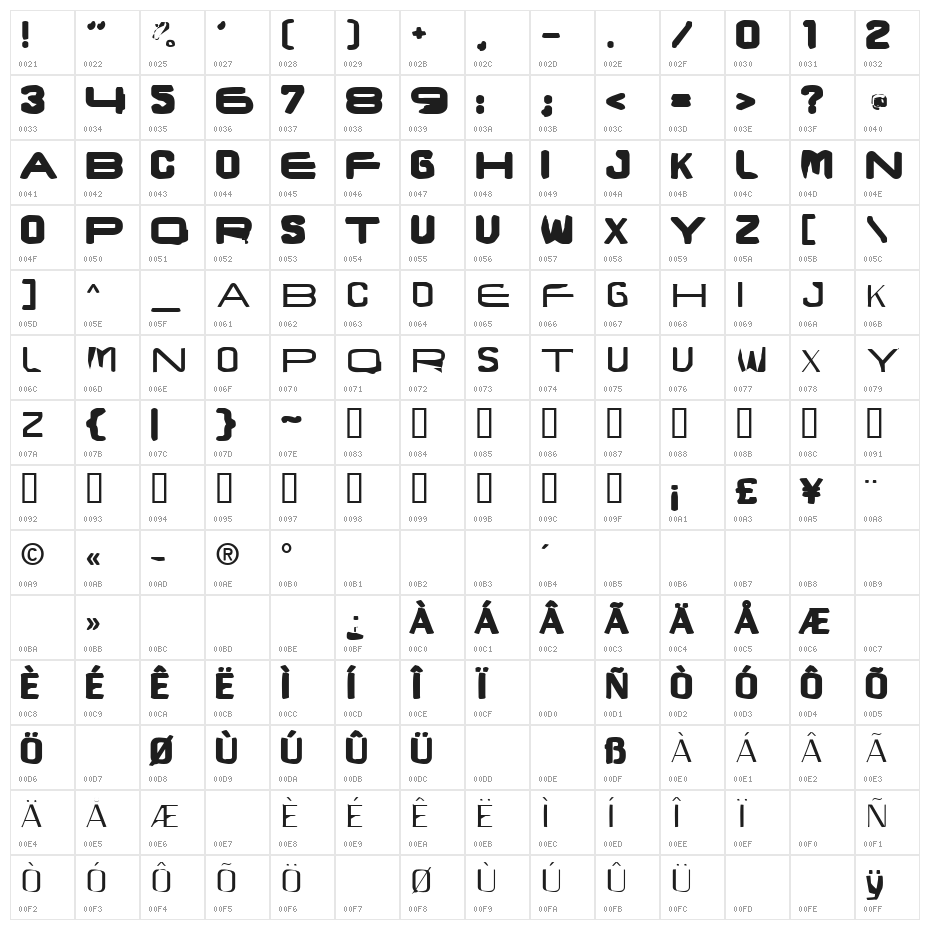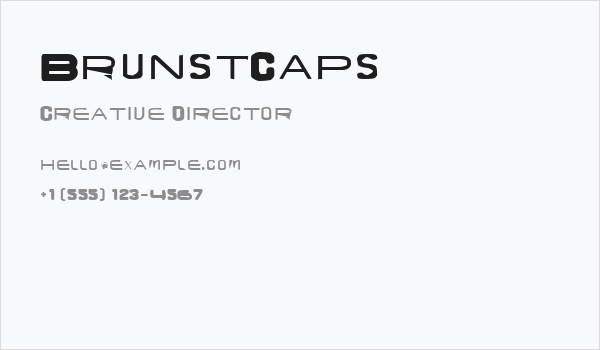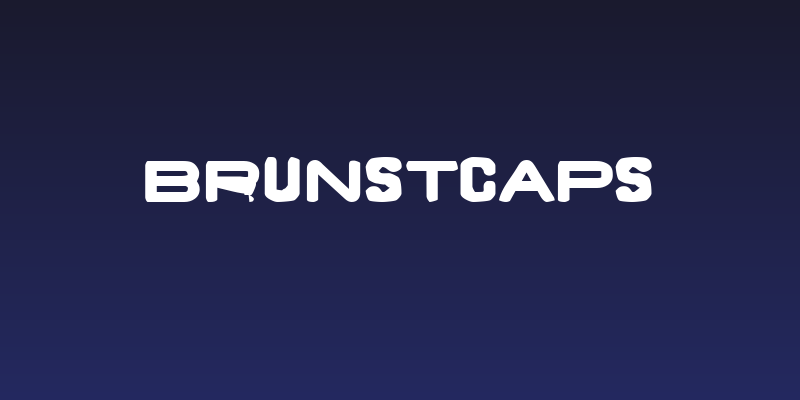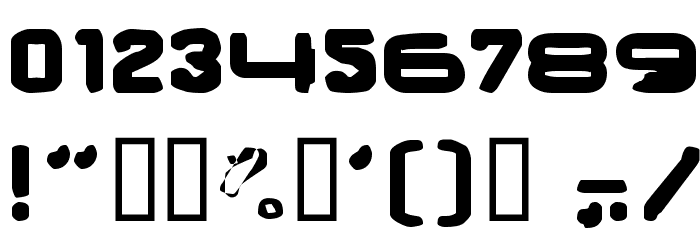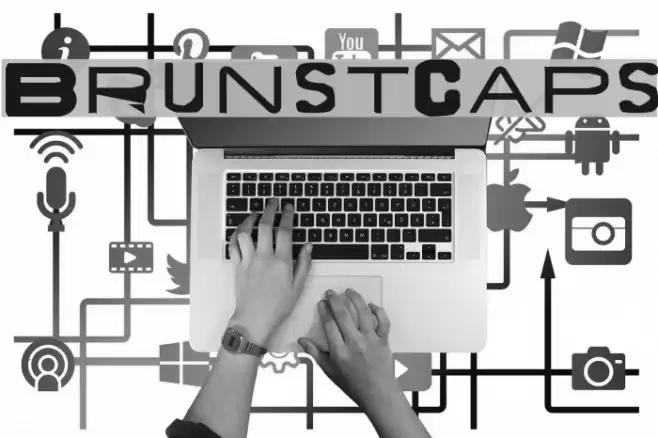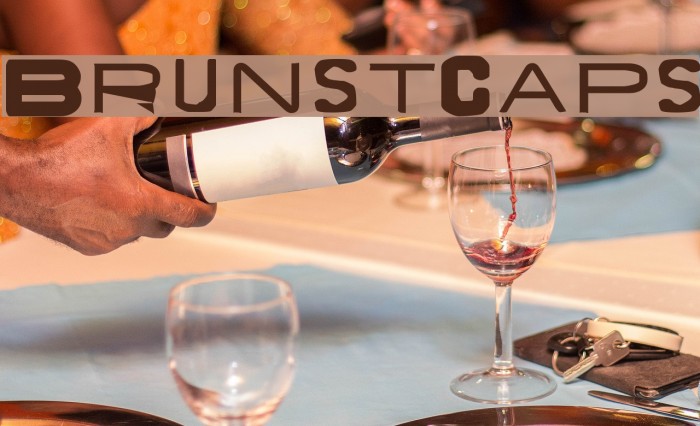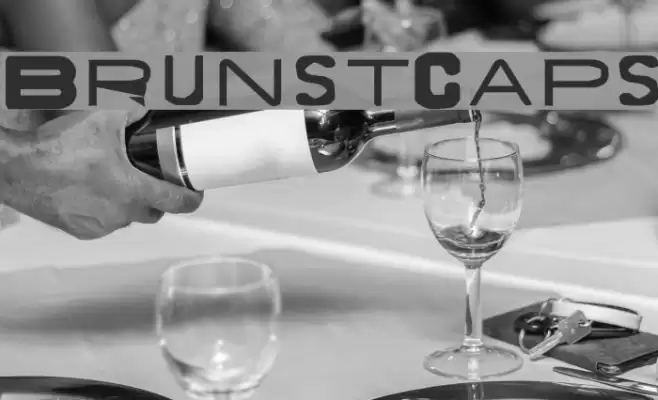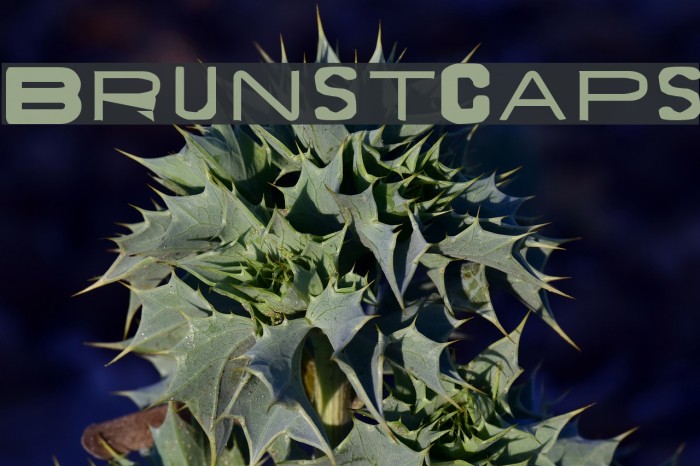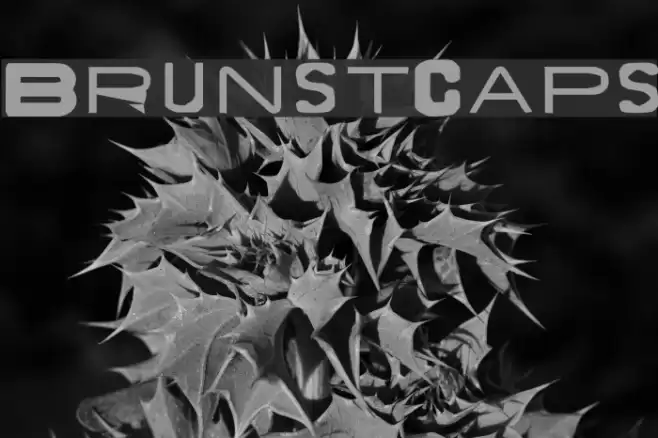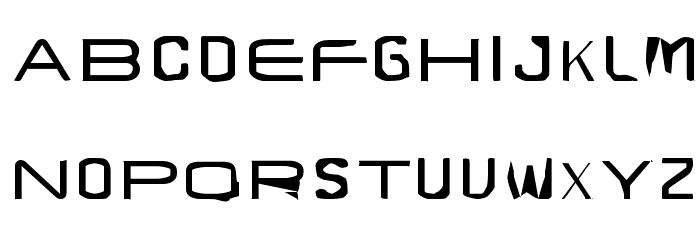
BrunstCaps Font
BrunstCaps Description
This font features a bold and geometric style with a futuristic touch. The characters are constructed with thick, block-like strokes, giving them a strong presence. The design incorporates unique cutouts and angular shapes, adding a modern and edgy feel. The uppercase letters are particularly striking, with consistent height and width, while the lowercase letters maintain a similar aesthetic. The numerals are equally bold, ensuring readability and impact. Special characters are designed to match the overall style, making this font suitable for creative and dynamic projects.
| Proposed Projects | Ideal for branding, posters, video game graphics, and sci-fi themed designs. |